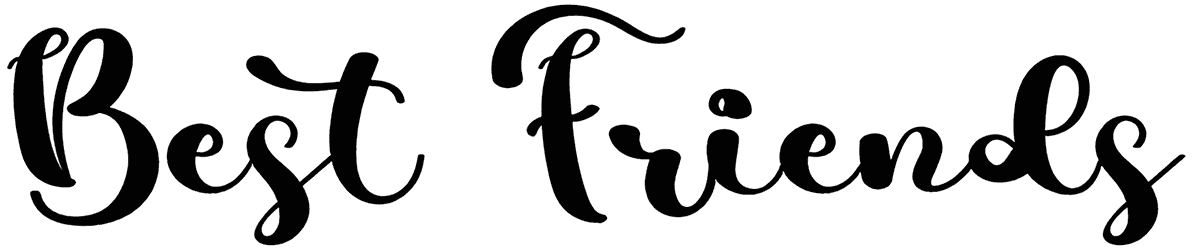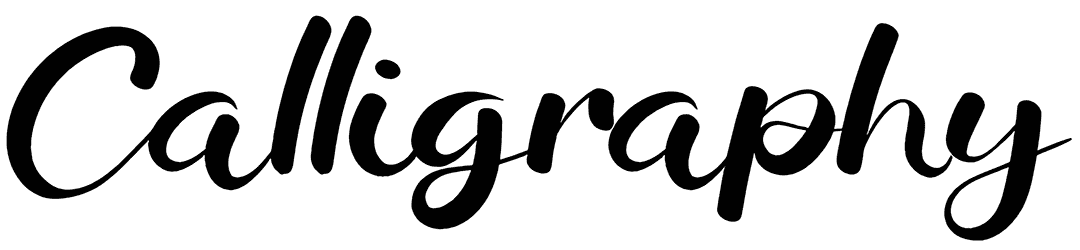
Maria Christmas Font
Where can a font with a whimsical and festive touch convey a lively and elaborate sense, and be brilliant? Yes, you guessed it: Christmas flyers, posters, and invitations are an appealing way to attract attention.
The Maria Christmas, inspired by holiday fonts, is here to help you improve your design skills, so give it a try and impress your audience. A variety of beautiful holiday and Christmas fonts can be found in our library.